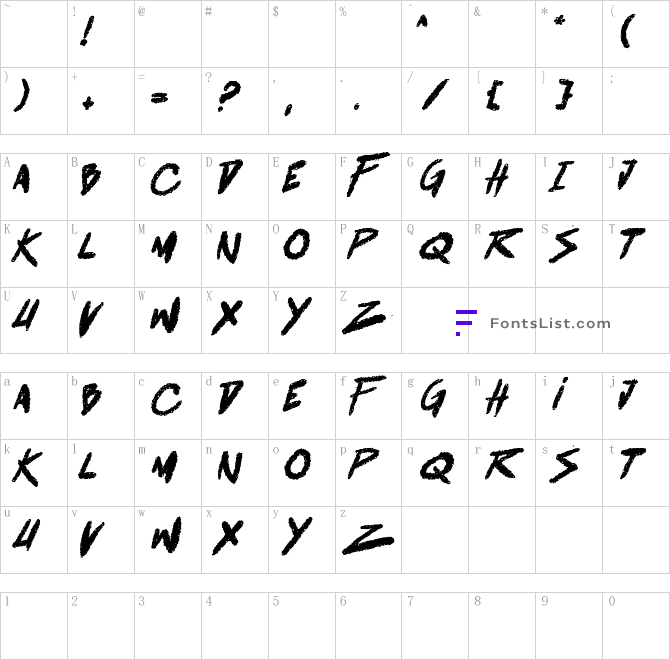
- Font Name:battle breath
battle-breath-Bold-Italic.ttf is a very beautiful artistic font, battle-breath-Bold-Italic.ttf is widely used in the design and printing of various books and pictures,battle-breath-Bold-Italic.ttf has a strong visual impact,battle-breath-Bold-Italic.ttf is a commonly used font in newspapers, magazines and books, and is used in posters, e-commerce Poster design, store design, logo design, font design and other fields.battle-breath-Bold-Italic.